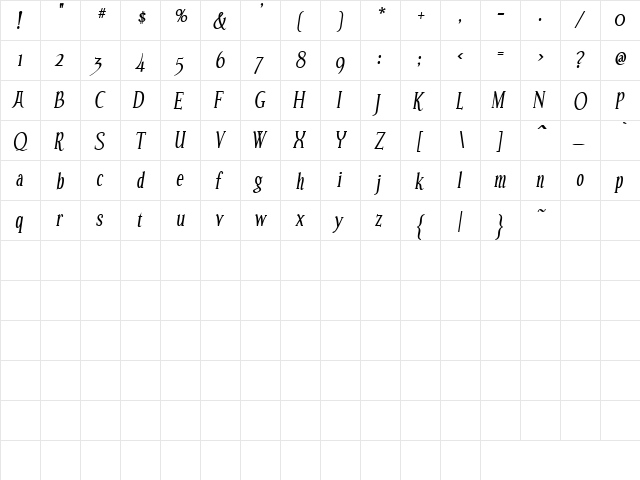
PC Thanks Elegance Regular
Design Context for PC Thanks Elegance Typeface
PC Thanks Elegance offers clean, dependable letterforms without strong stylistic allegiance, making it a practical choice for designers who need flexibility.
Pro Tip: Pair PC Thanks Elegance with a font of contrasting weight or personality to build a more expressive typographic hierarchy.